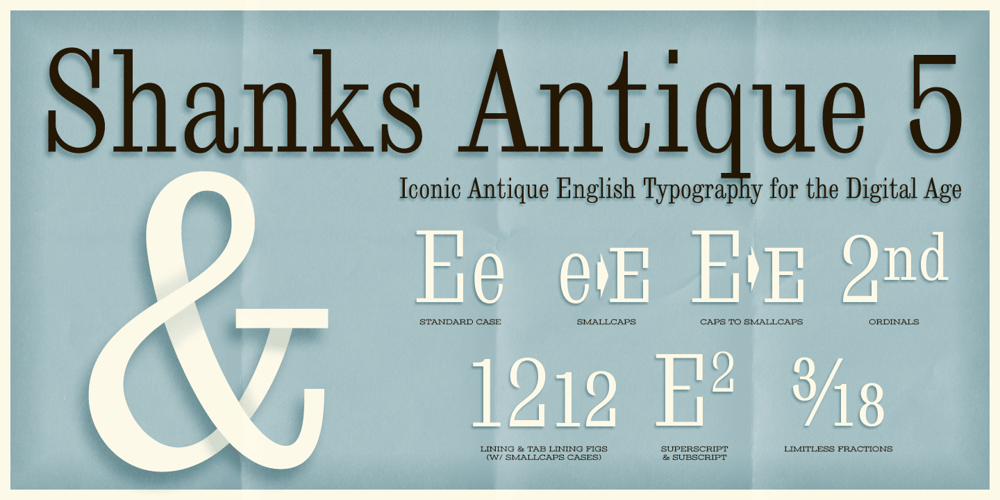
Shanks Antique 5 AOE Pro
Shanks Antique 5 AOE Pro font
Shanks Antique 5 AOE Pro Font Family was designed by Brian J. Bonislawsky and published by Astigmatic. Shanks Antique 5 AOE Pro contains 1 styles and family package options. Shanks Antique 5 Pro is an iconic antique English typestyle rooted in tradition. It is the historical revival and elaboration of the “Antique No. 5” typeface created by Stevens, Shanks & Sons in 1865. What began as a basic character set of Capitals, lowercase, numerals, and a small handful of punctuation characters has been expanded to a full character set including unlimited fractionals, superiors & inferiors, ordinals, tabular & proportional figures, and an expanded language glyph set, all with a smallcaps and Caps to Smallcap set to match. Reviving history looks and feels good. Perfect for wedding invitations, historical ephemera recreations, and classically elegant text settings.